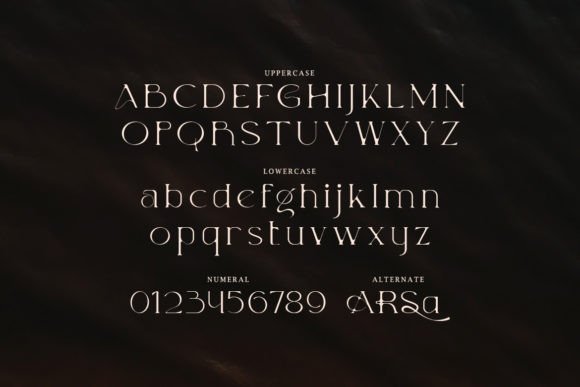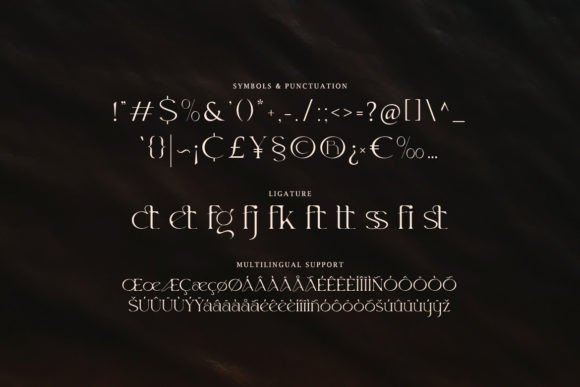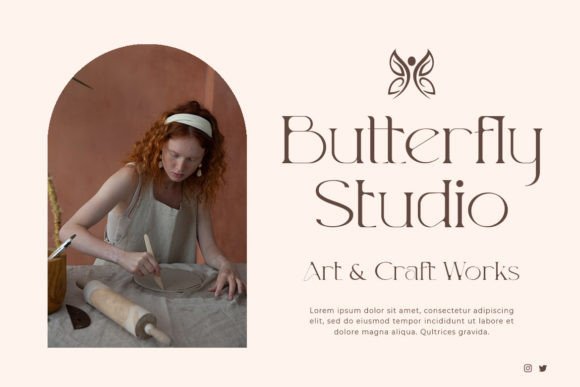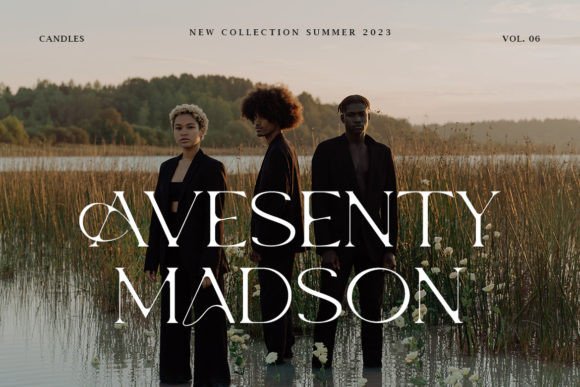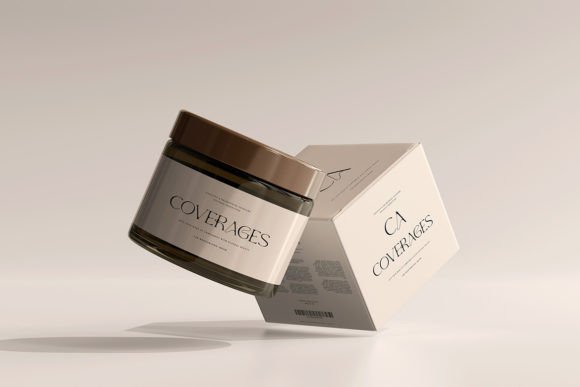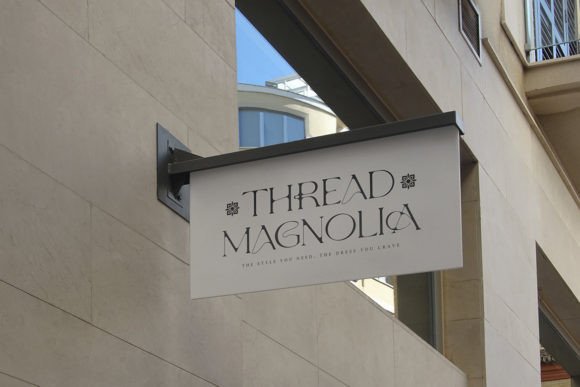
Introduction to Rafinha Font Font
Fonts play a crucial role in design, and the Rafinha Font font is a typeface that brings both character and versatility to any project. Whether you’re working on a branding project, a website, or a print design, the Rafinha Font font offers a unique style that can elevate your work.
Rafinha is a unique serif font.
Its style makes it perfect for use in your design projects, including product packaging, book covers, titles, banners, business cards, and more .
Key Features of Rafinha Font Font
Why Choose Rafinha Font Font?
The Rafinha Font font is more than just a typeface – it’s a design tool that helps you communicate your message with style and clarity. Its unique character set and versatile design make it suitable for a wide range of applications, from elegant invitations to bold headlines.
With its carefully crafted letterforms and balanced proportions, the Rafinha Font font ensures readability and visual appeal across all mediums.
What makes Rafinha Font font special?
The Rafinha Font font stands out with its unique design, exceptional readability, and versatility across various design applications.